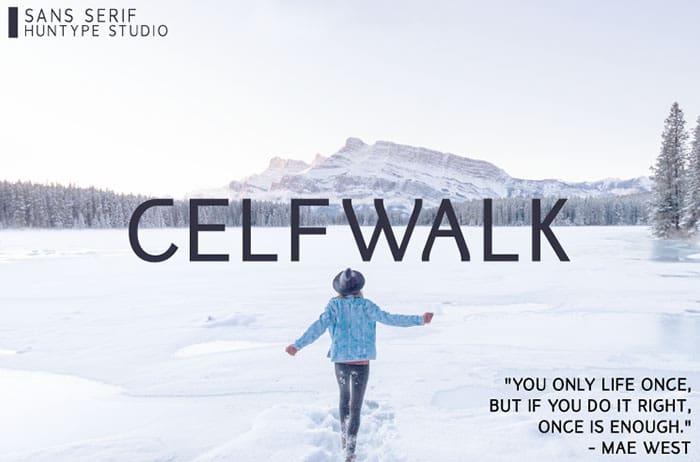
Celfwalk is a fancy and contemporary sans serif font. It features neat and beautiful characters. This typeface will look outstanding in both formal and non-formal designs. Thanks to Mas Anis for sharing this font! Take a look at this portfolio for more of his stunning fonts.